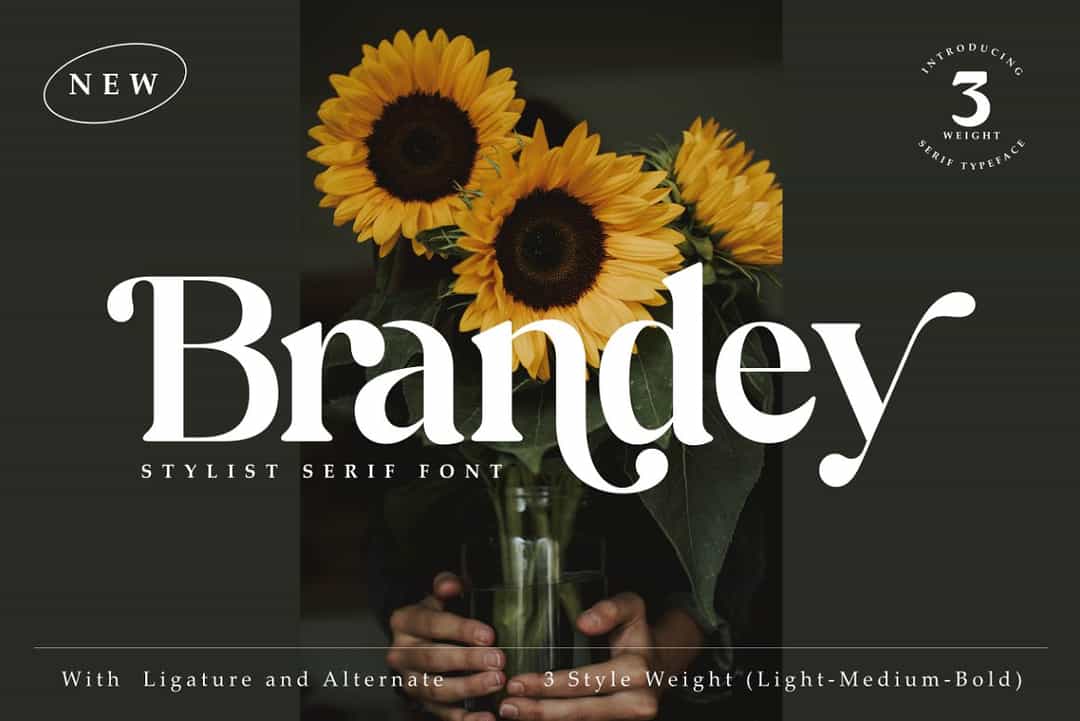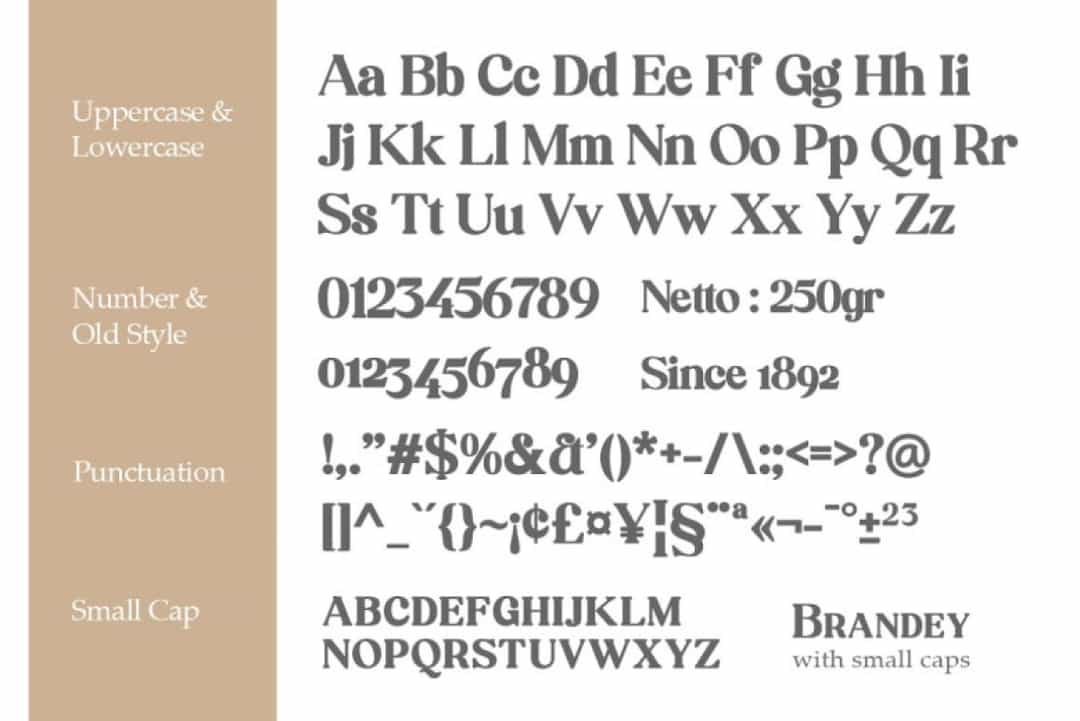
Brandey can be described as a serif font with contemporary style, offering warmth and inviting comfort without losing elegance. It comes equipped with three thicknesses to allow designers to select their ideal thickness when creating. Brandey is perfect for branding, advertising packaging, logotypes headlines titles as well as editorial design projects.